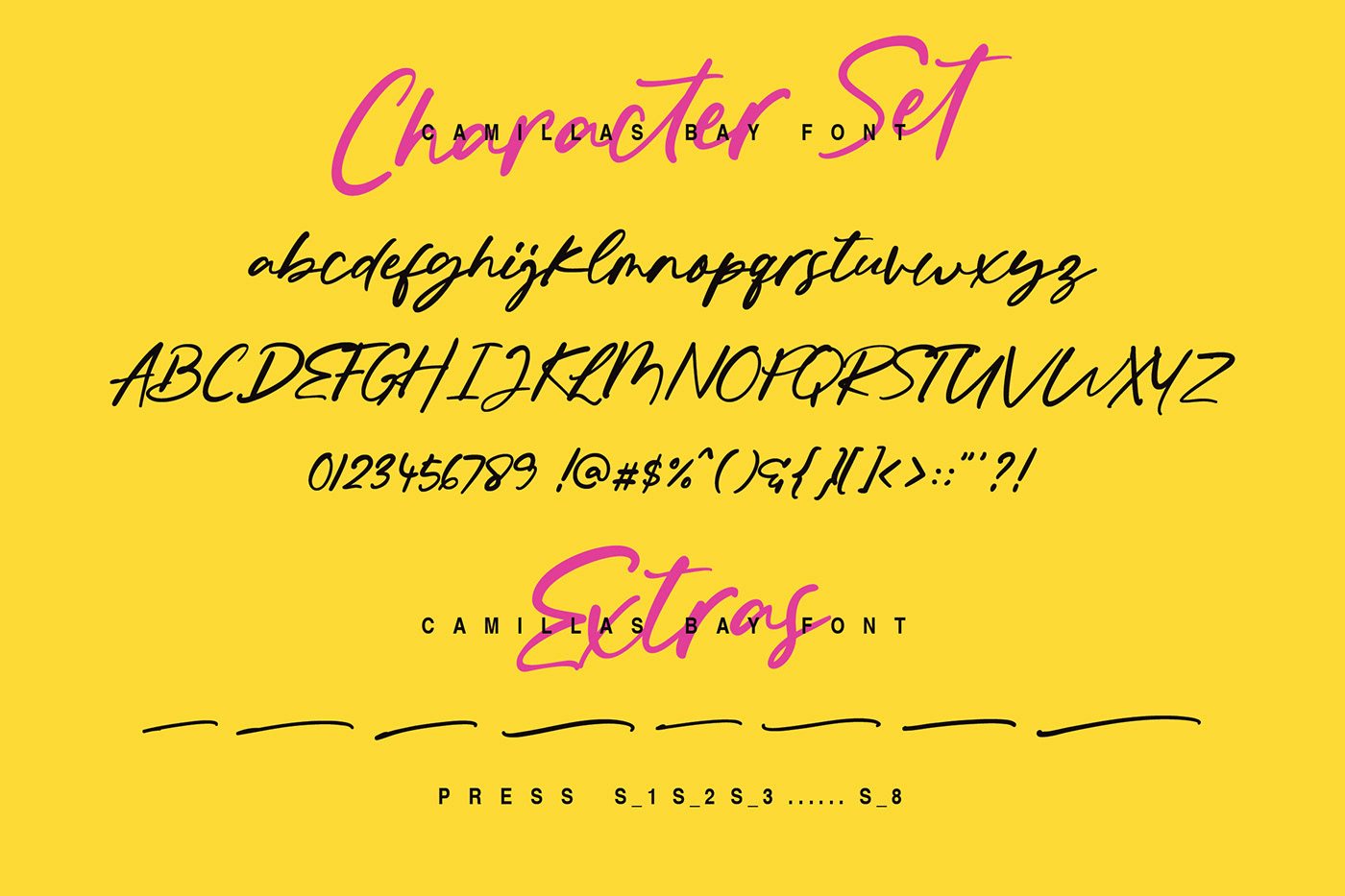
It's Summer! Introducing natural handwritten font with elegant swash extras. Camillas Bay can be used for various types of design needs such as branding, poster, promotion, summer stuff.